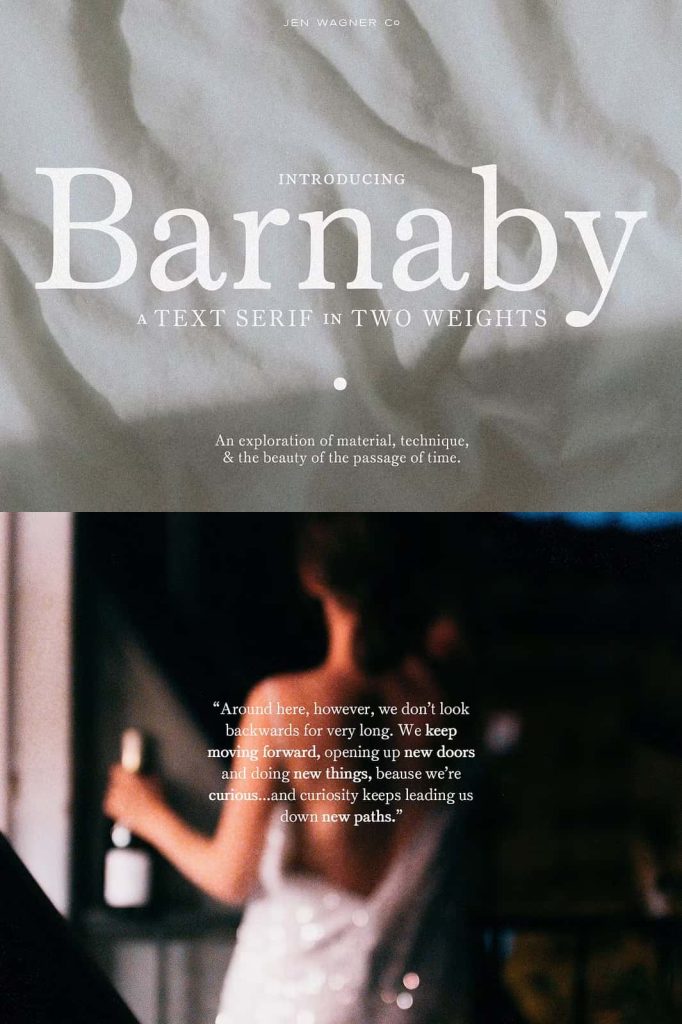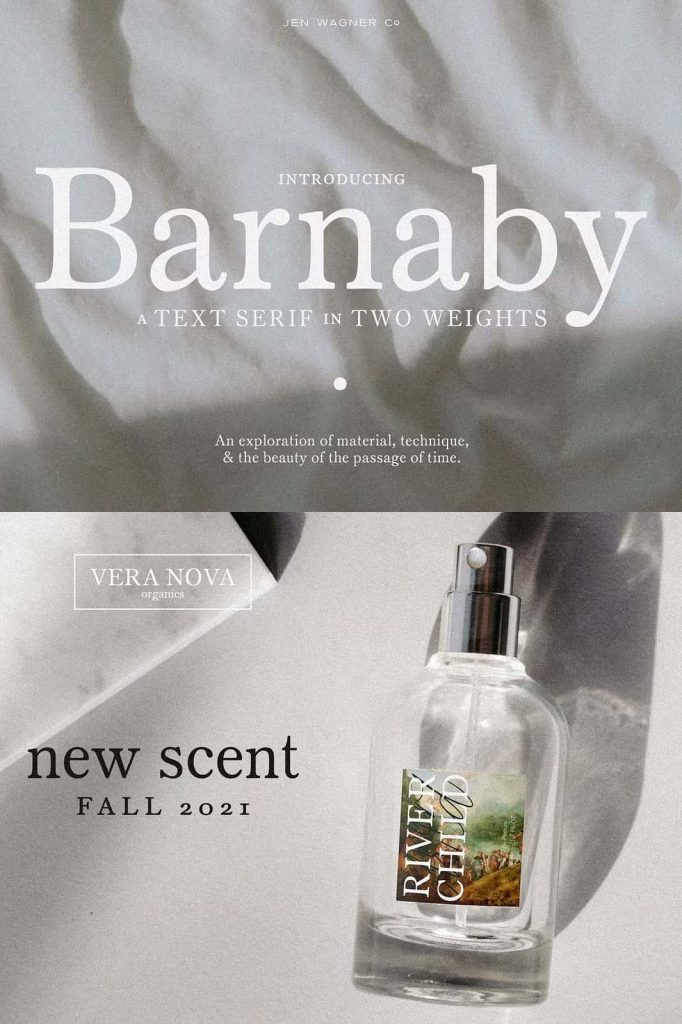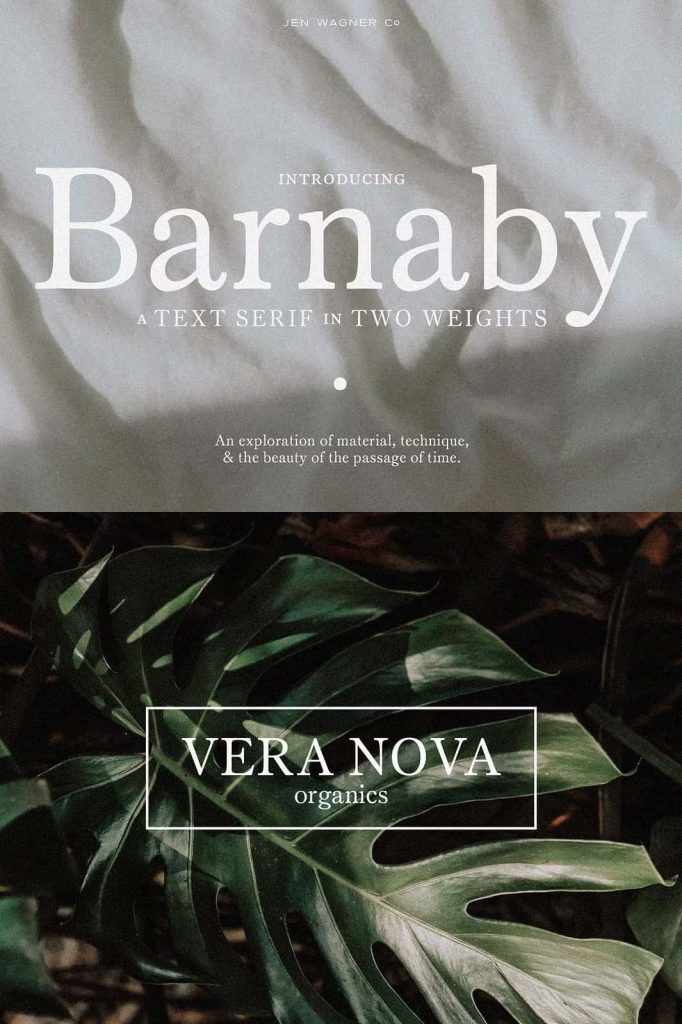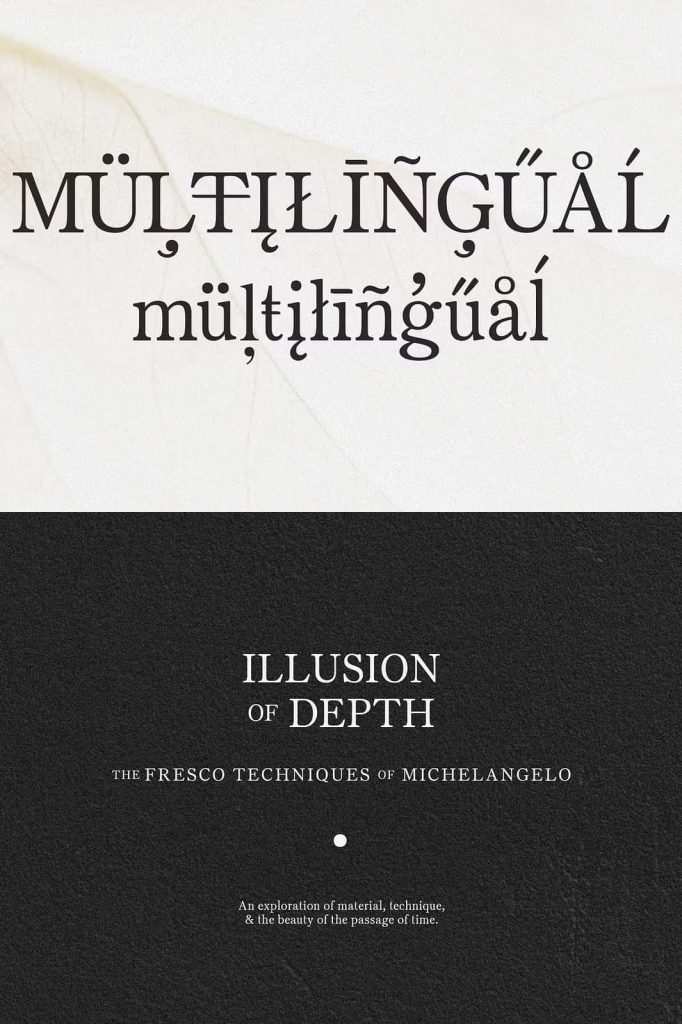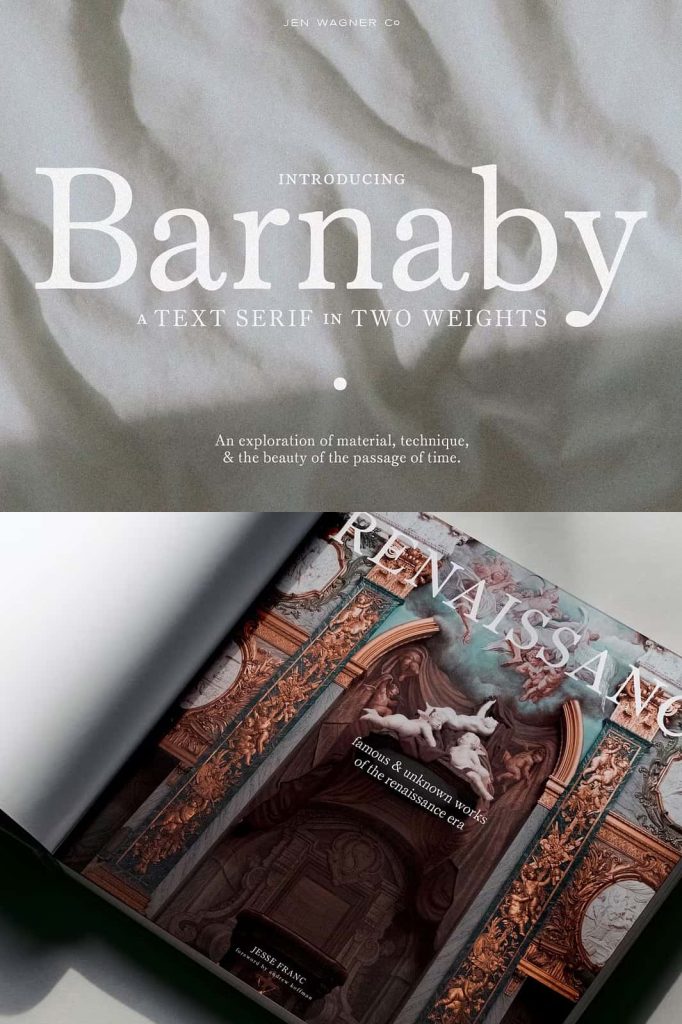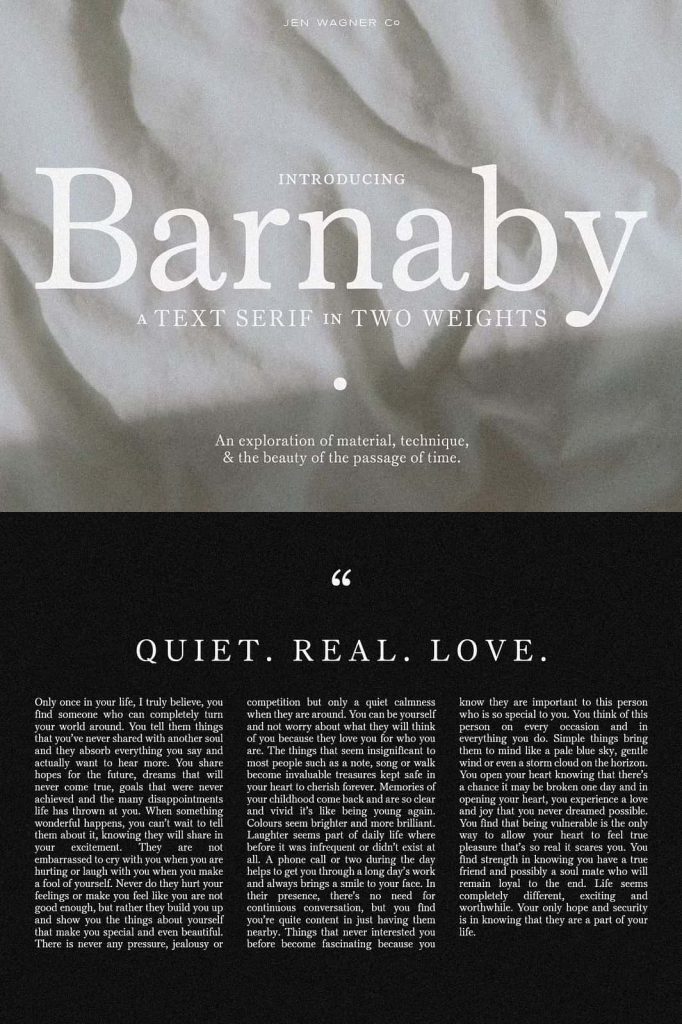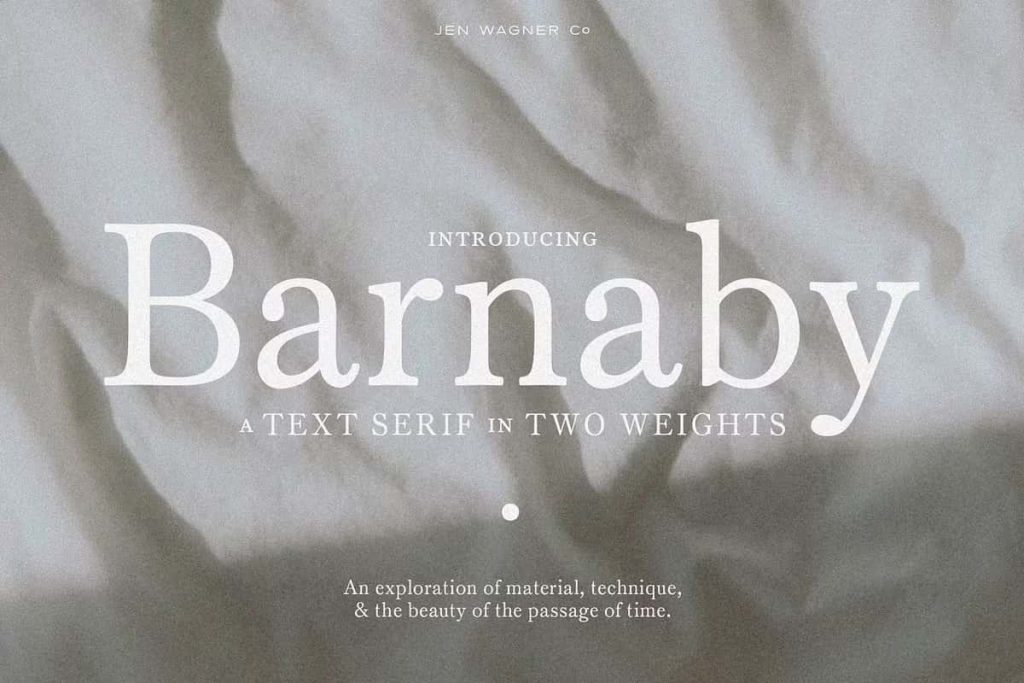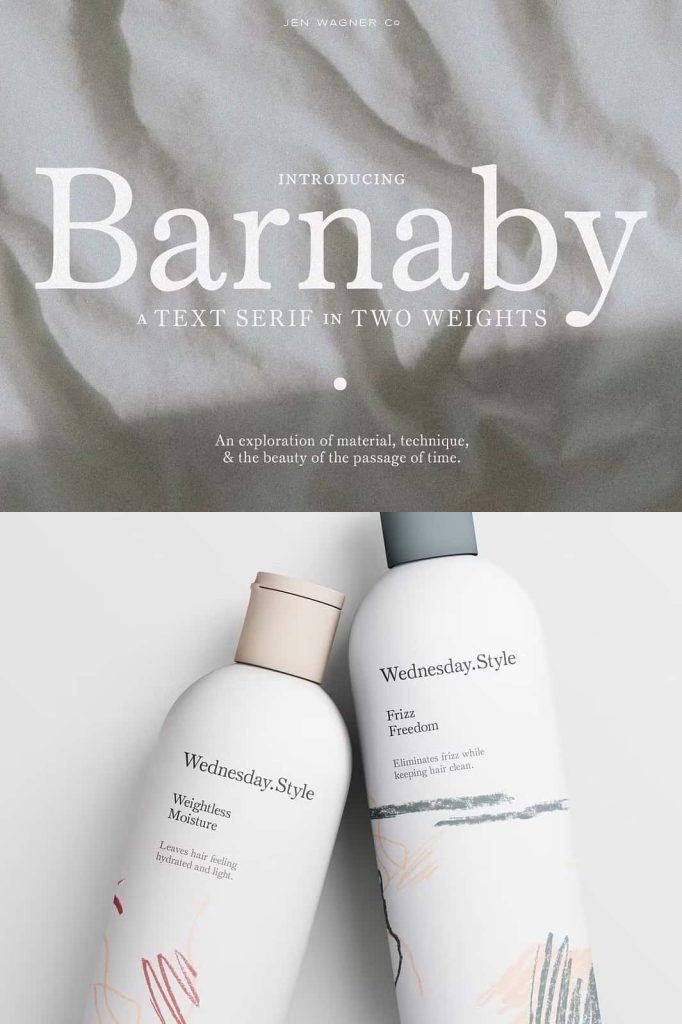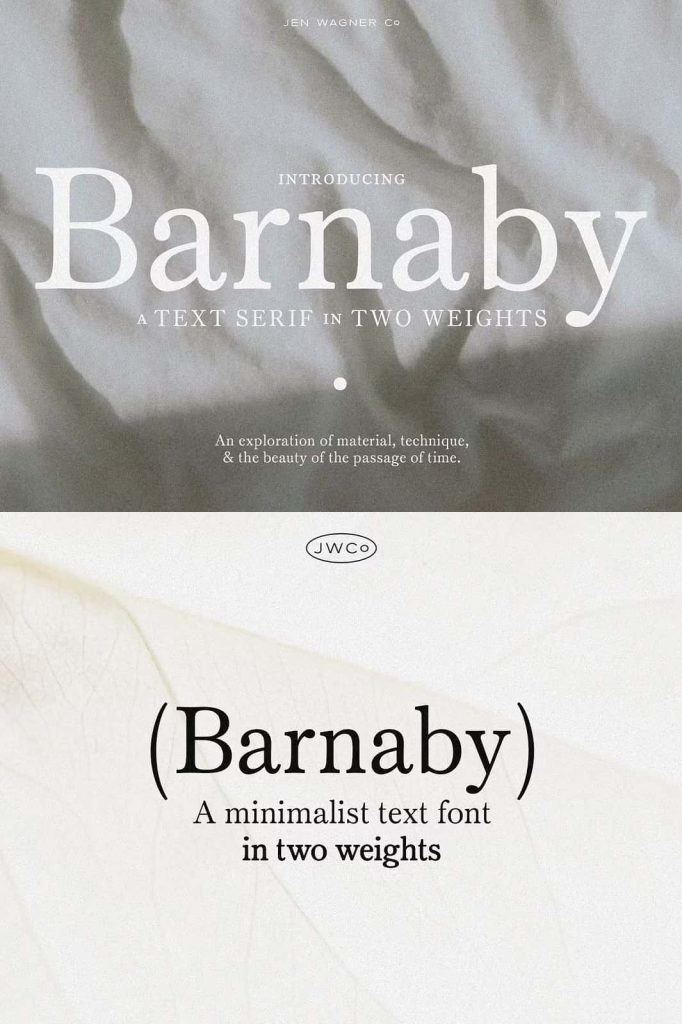
Barnaby Serif Font
Barnaby Serif Font is a refined and versatile typeface designed to bring elegance, readability, and professionalism to a wide variety of creative projects. Featuring beautifully crafted uppercase and lowercase characters, Barnaby delivers a timeless serif style that performs exceptionally well for both display typography and extended body text. Whether you are designing a luxury brand, creating editorial layouts, or building a polished website, Barnaby offers the perfect balance between classic sophistication and modern functionality.
Unlike many serif fonts that excel only in large headlines, Barnaby has been carefully designed to remain highly readable even at smaller sizes. This makes it an excellent choice for books, magazines, websites, brochures, annual reports, and other projects where clarity is just as important as visual appeal.
Elegant Serif Design with Exceptional Readability
Barnaby combines graceful serif details with clean, balanced letterforms to create typography that is both attractive and easy to read. Every character has been carefully refined to provide smooth reading experiences across digital screens and printed materials. The thoughtful spacing and proportion of each letter help improve legibility without sacrificing elegance.
This makes Barnaby an ideal solution for designers who need a serif typeface capable of handling both large headlines and long paragraphs of text. The result is a font family that feels professional, polished, and highly versatile.
Two Weights for Greater Design Flexibility
Barnaby includes two carefully crafted font weights, giving designers more creative freedom when building typography systems. These weights allow you to establish clear visual hierarchy while maintaining consistency throughout your designs.
You can use one weight for clean and readable body text while applying the second weight to titles, headings, logos, or highlighted content. This subtle contrast helps organize information, improve readability, and create more engaging page layouts without introducing unnecessary complexity.
The flexibility of multiple weights also makes Barnaby suitable for complete branding systems where consistency across every touchpoint is essential.
Perfect for Branding and Identity Design
The elegant appearance of Barnaby makes it an outstanding choice for businesses seeking a sophisticated and memorable visual identity. Its timeless serif construction communicates professionalism, trust, and quality while remaining approachable and contemporary.
Whether you are developing a new brand or refreshing an existing identity, Barnaby works beautifully for:
- Logo design
- Luxury branding
- Fashion labels
- Beauty and cosmetics brands
- Corporate identity systems
- Business cards
- Product packaging
- Brand guidelines
- Marketing materials
- Premium stationery
The combination of elegant letterforms and excellent readability allows Barnaby to perform consistently across both large branding elements and smaller supporting text.
Designed for Editorial and Publishing Projects
Barnaby shines in editorial environments where readability and visual harmony are equally important. Its carefully balanced design makes long passages of text comfortable to read while maintaining an attractive appearance throughout every page.
This serif font is ideal for:
- Books
- Magazines
- Newspapers
- Editorial layouts
- Brochures
- Annual reports
- Catalogs
- Newsletters
- Academic publications
- Professional documents
Its elegant personality also enhances headlines, chapter titles, pull quotes, and section headers, allowing designers to create cohesive layouts with minimal effort.
Optimized for Digital and Print Media
Modern typography must perform consistently across multiple platforms, and Barnaby has been designed with this versatility in mind. Whether displayed on high-resolution monitors, mobile devices, printed brochures, or professionally published books, the font maintains excellent clarity and visual balance.
Its carefully crafted details ensure crisp rendering on websites while preserving the refined elegance expected from premium serif typography in printed materials.
This makes Barnaby an excellent choice for web designers, publishers, marketing professionals, and branding agencies looking for one dependable typeface family across all communication channels.
Professional Typography for Every Creative Project
Barnaby adapts effortlessly to many different design applications, making it a valuable addition to any designer’s font library. From elegant editorial layouts to premium brand identities, its versatility supports both minimalist and highly sophisticated design styles.
You can confidently use Barnaby for:
- Website typography
- Landing pages
- Logo design
- Editorial publishing
- Luxury packaging
- Wedding stationery